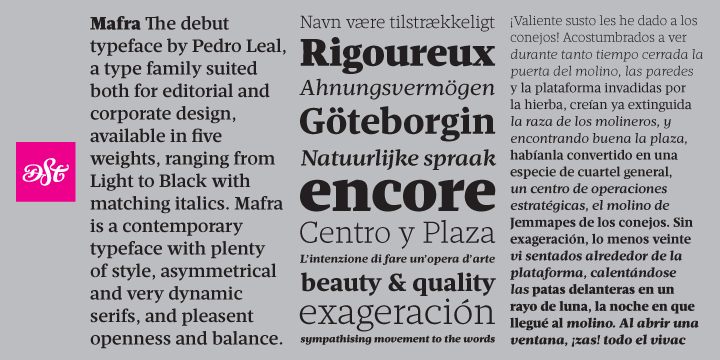
Mafra Font is perfect for architectural design projects including construction company branding, architectural firm presentations, building development materials, urban planning documents, structural engineering firms, monument preservation projects, heritage building restoration, and prestigious construction campaigns. This monumental typeface excels in civic buildings, architectural museums, construction industry publications, stone masonry companies, and projects that celebrate architectural grandeur and structural excellence.
What makes Mafra Font exciting is its majestic architectural character that perfectly captures the essence of monumental construction and palatial grandeur. The font features stately letterforms with classical proportions that reflect the imposing beauty and structural magnificence of baroque architecture. Its monumental design elements embody the spirit of architectural mastery and royal craftsmanship, making it perfect for projects that need to convey permanence, grandeur, and connection to architectural heritage. The carefully crafted palatial details create an atmosphere of regal sophistication and architectural authority.
Mafra Font comes in multiple family variations including classical, monumental, royal, and baroque styles. Each weight maintains the distinctive architectural character while offering different levels of palatial intensity and monumental presence. The font family includes architectural alternates, baroque ligatures, and palace variations that provide designers with comprehensive options for creating truly magnificent and architecturally authentic typographic compositions that honor building traditions.
Whether you're designing architectural branding, creating construction marketing materials, or developing monumental promotional graphics, Mafra Font Free Download provides the perfect typographic foundation for projects that celebrate architectural excellence and structural magnificence. This extraordinary typeface transforms ordinary text into compelling expressions of architectural vision and construction mastery. Download this magnificent font today and construct your design projects with the monumental elegance and architectural authority that captures the eternal beauty of palatial architecture and structural grandeur.